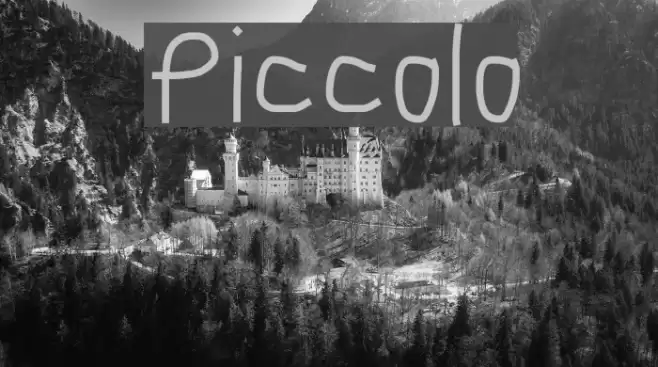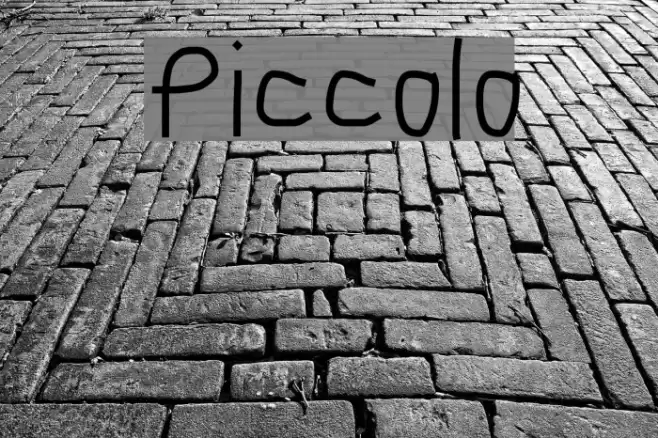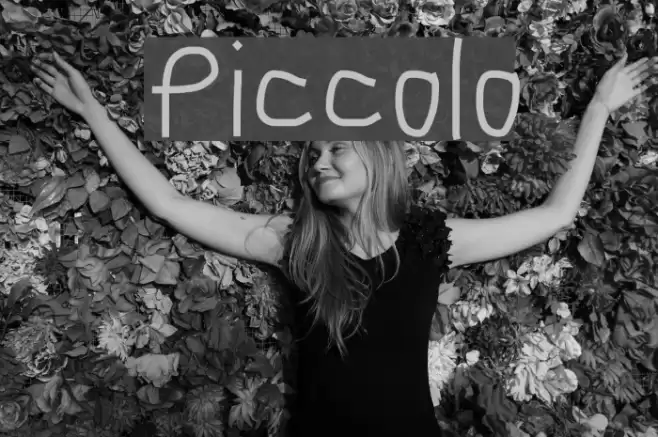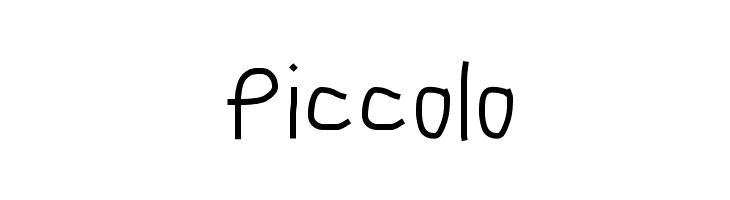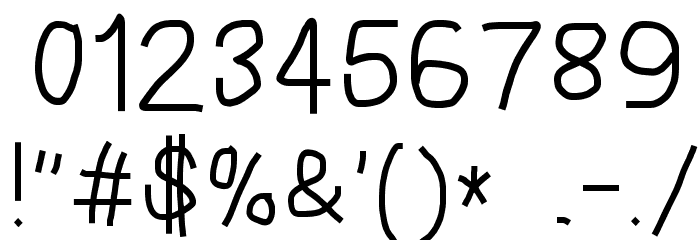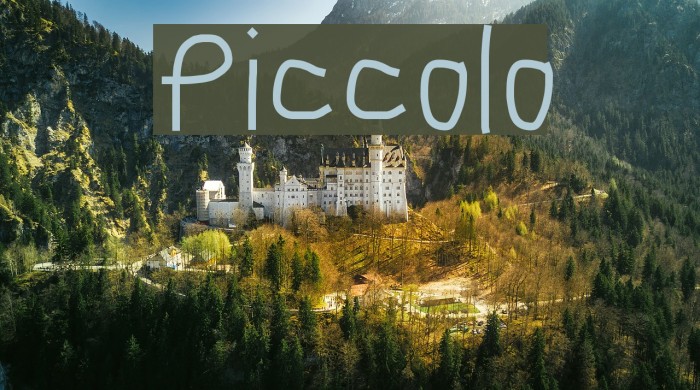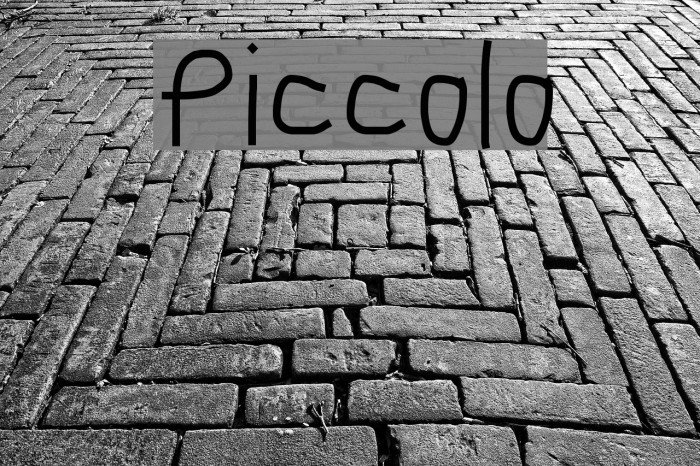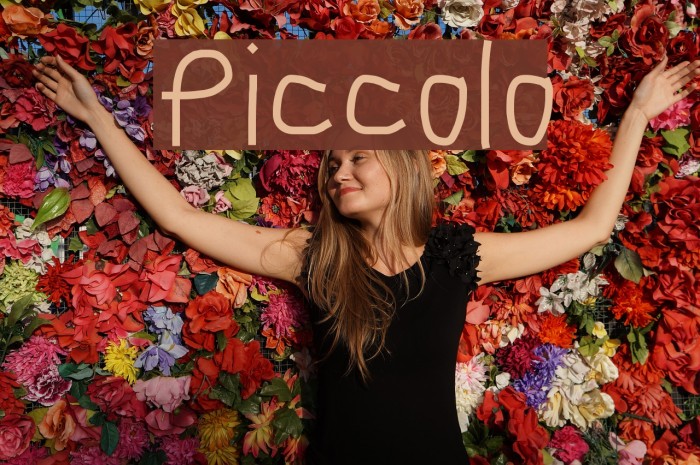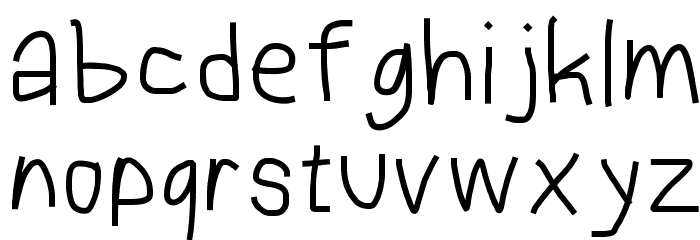
Piccolo Font
Piccolo Description
This font features a playful and informal handwritten style, characterized by its irregular strokes and casual appearance. The letters are slightly uneven, giving it a charming and approachable feel. The uppercase letters maintain a consistent height, while the lowercase letters exhibit a more varied baseline, adding to the font's whimsical nature. The numerals are clear and legible, matching the overall style of the alphabet. Special characters are included, maintaining the same playful aesthetic. This font is ideal for projects that require a personal touch or a friendly, informal vibe.
A playful, handwritten font with an informal and approachable style from Uncategorized fonts.
- Proposed Projects: Ideal for greeting cards, children's books, casual invitations, and personal blogs.
- Overall Style: Casual, Playful
- Use Case: Headlines, Informal text, Personal projects